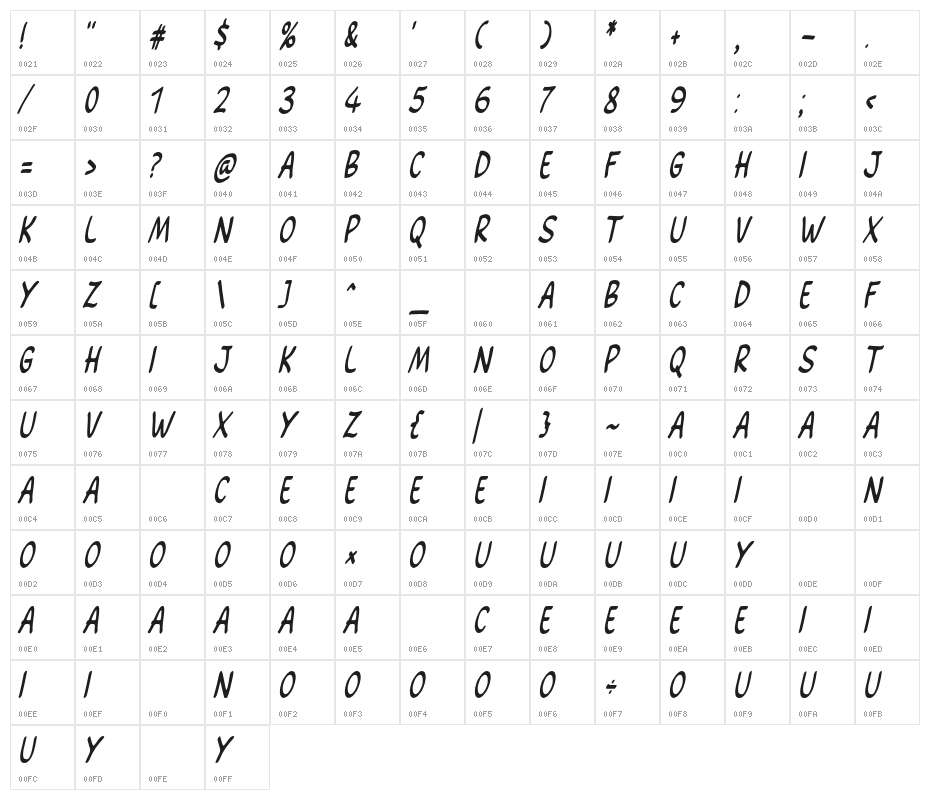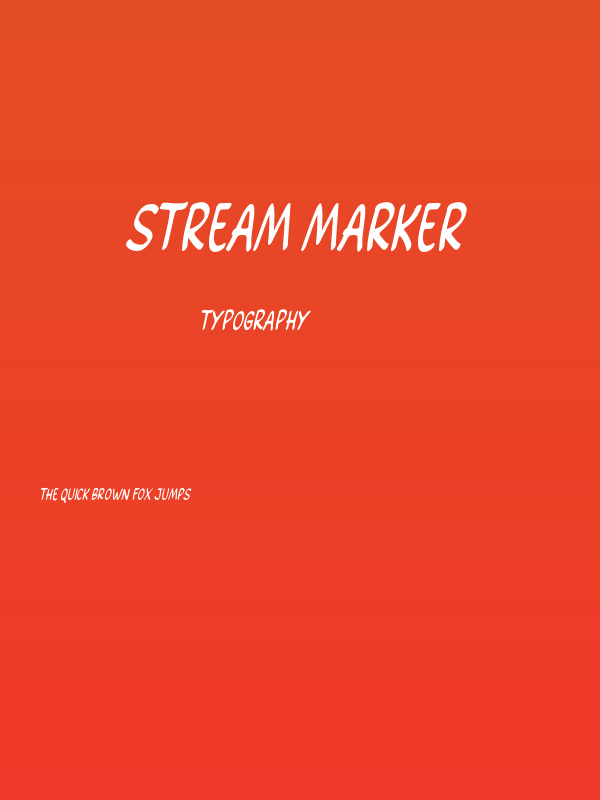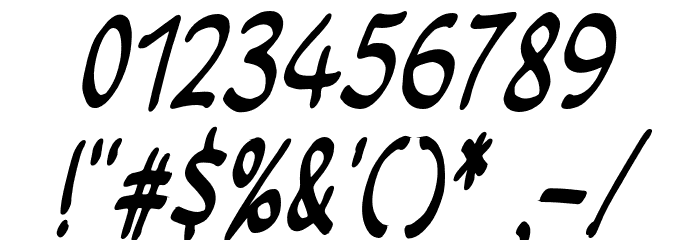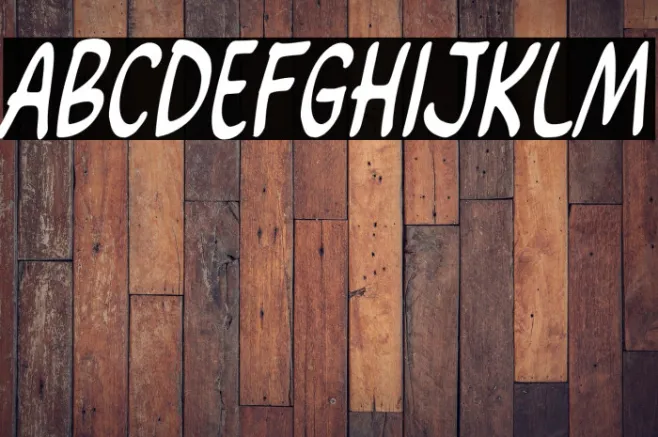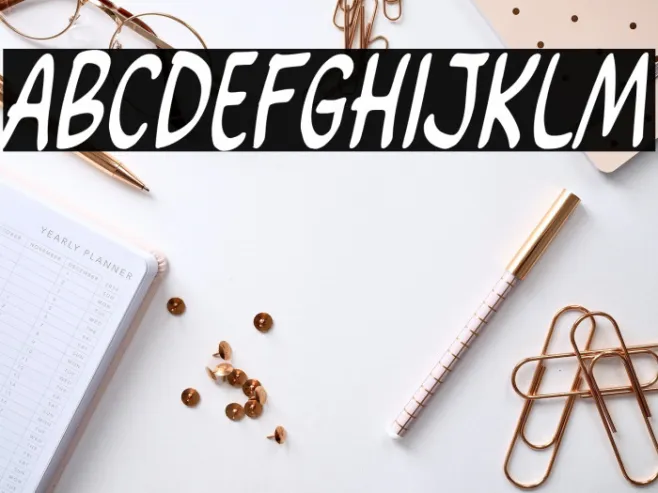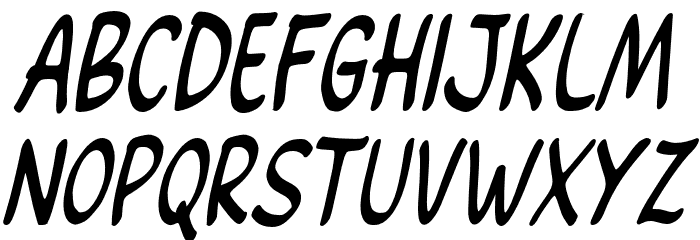
Stream Marker Font
Stream Marker Description
This font exhibits a dynamic and energetic style, characterized by its bold, handwritten appearance. The letters are slightly slanted, giving a sense of motion and fluidity. The strokes are thick and consistent, contributing to a bold presence on the page. Each character is distinct, with rounded edges and a casual, informal feel. The numbers and special characters maintain the same lively style, ensuring consistency across all text elements. This font is ideal for projects that require a personal touch or a sense of spontaneity.
| Proposed Projects | Ideal for creative projects such as posters, invitations, and branding materials that require a personal and lively touch. |